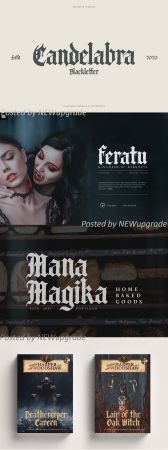
Introducing Candelabra, a medieval and fantasy inspired blackletter font. Letting out my inner nerd :P with this one!
Candelabra is a blackletter font full of medieval mysticism and age. An ideal choice for tattoo studios, band logos and album art, trendy fashion apparel, book covers, game design, packaging design and more. Historical and modern aesthetics are both easily achieved with this personality rich font.
Upper and lowercase letters are included, along with ligatures, numerals and punctuation. (See preview image for the full character map.)